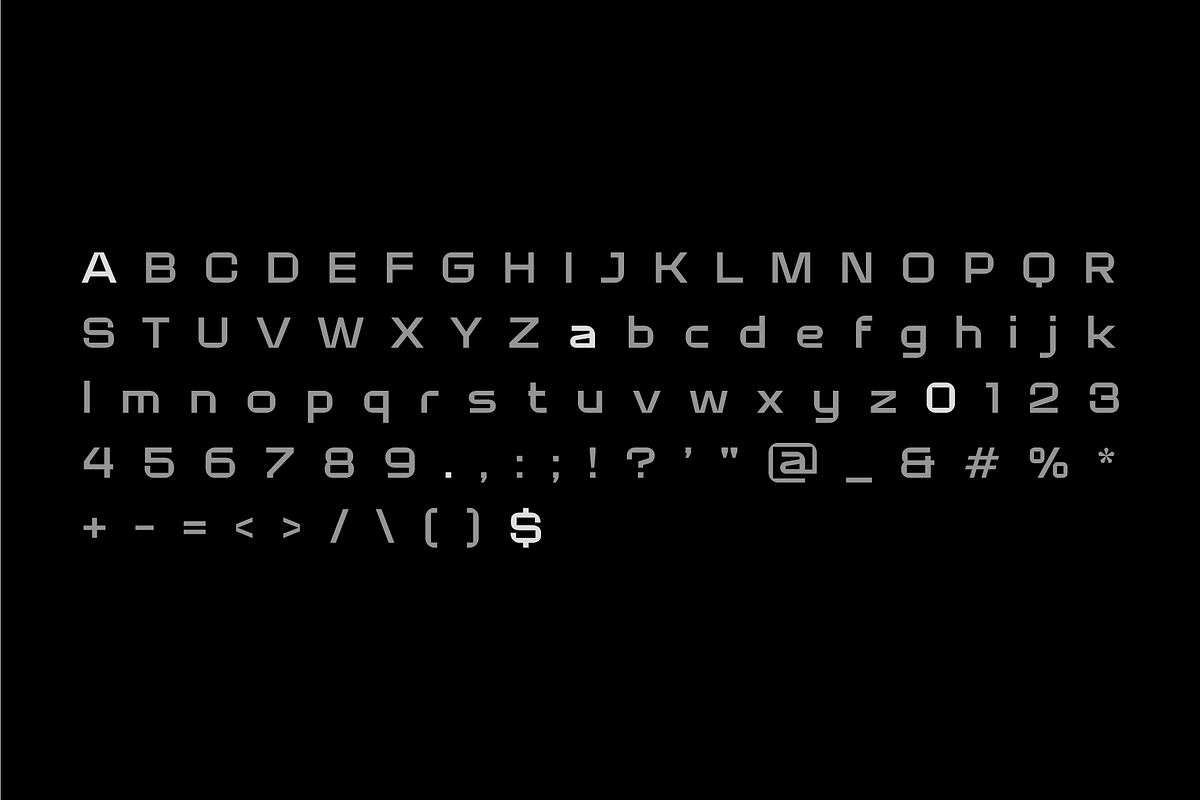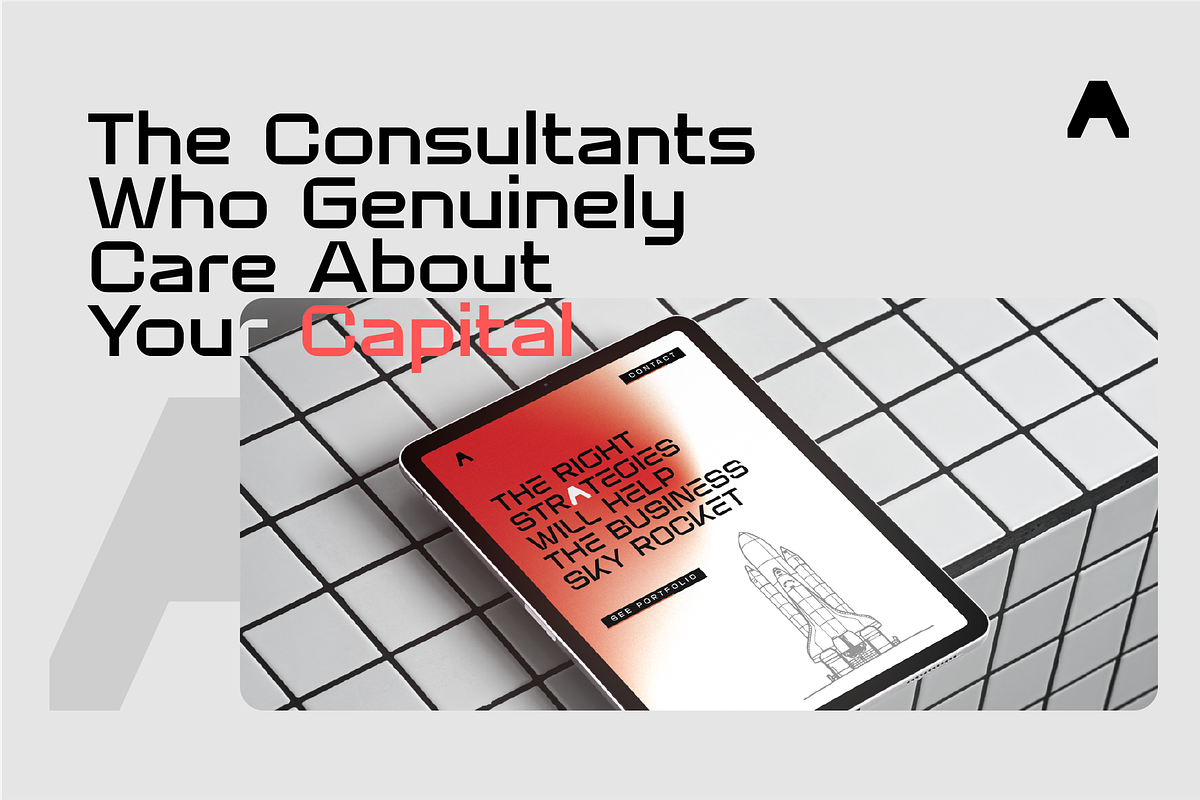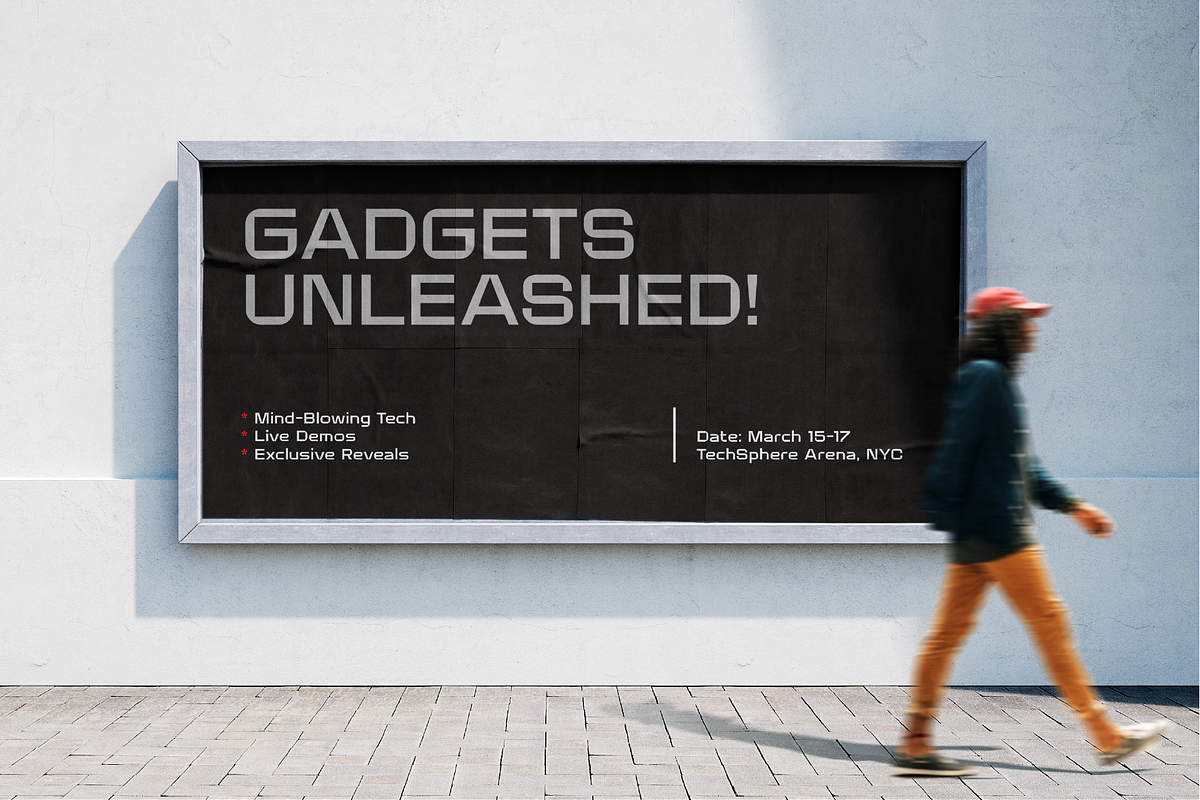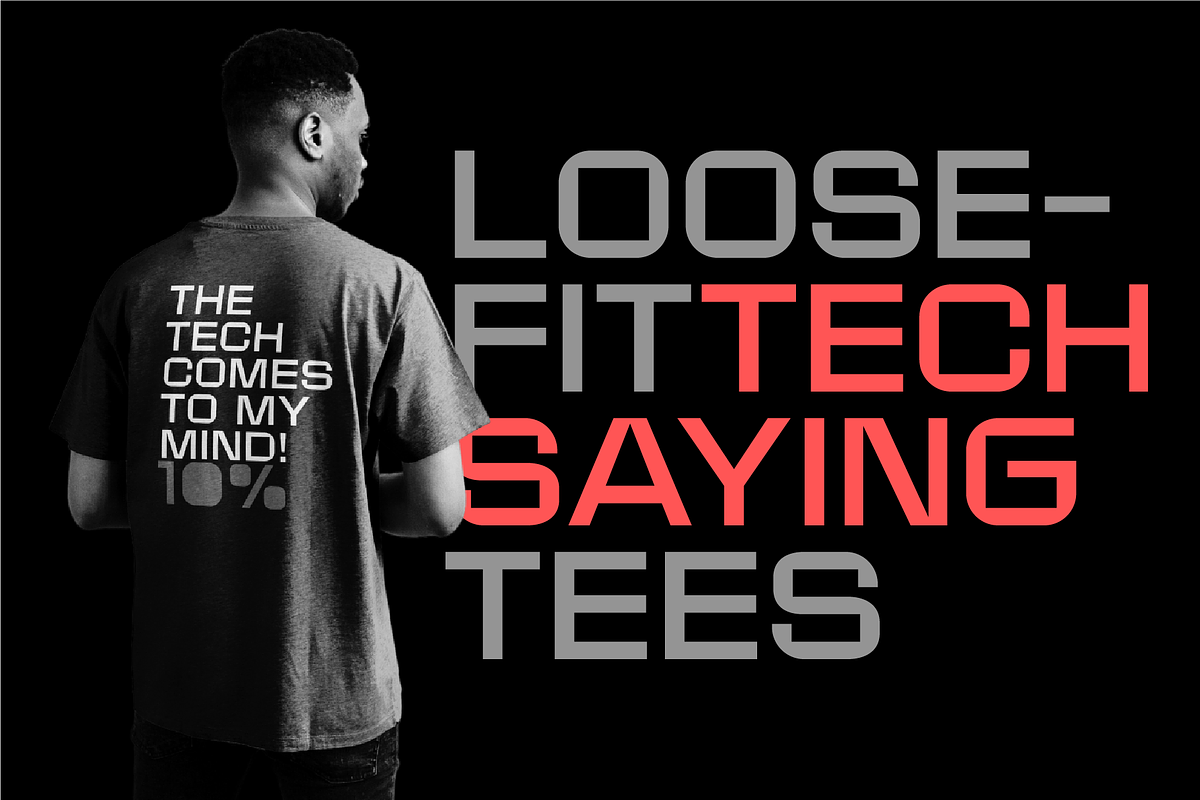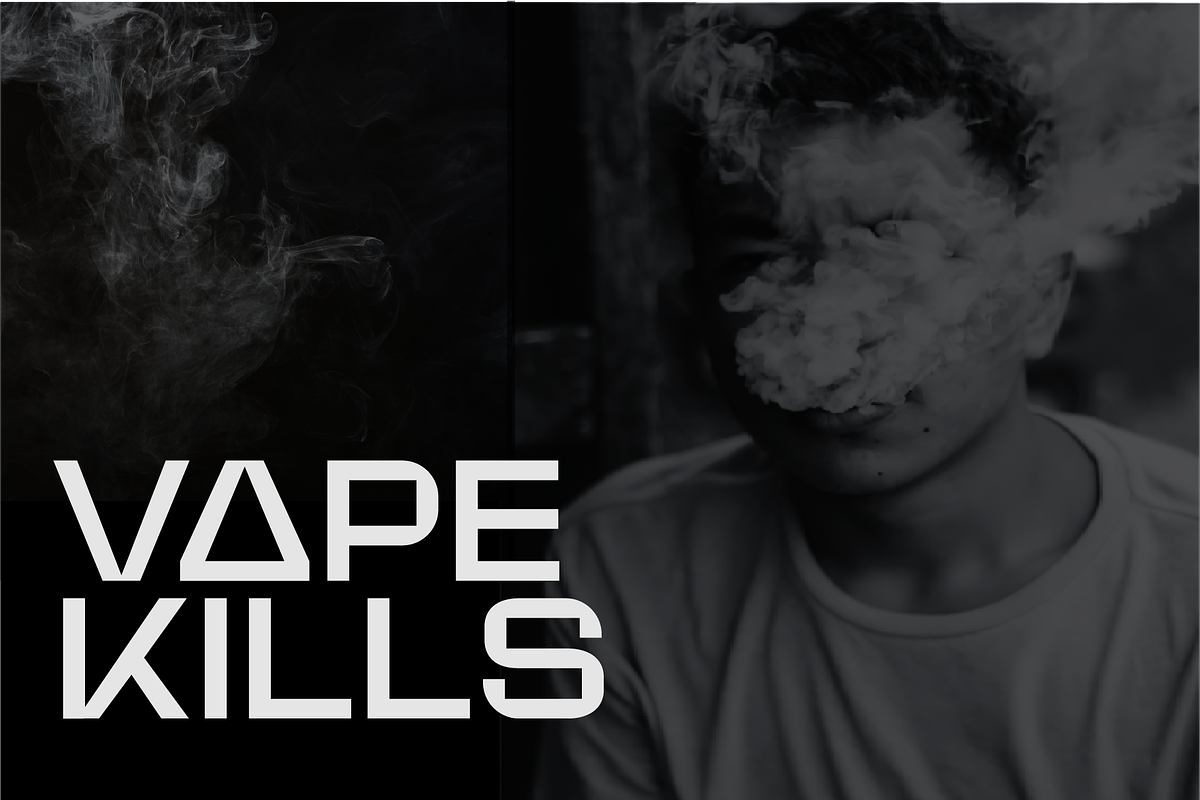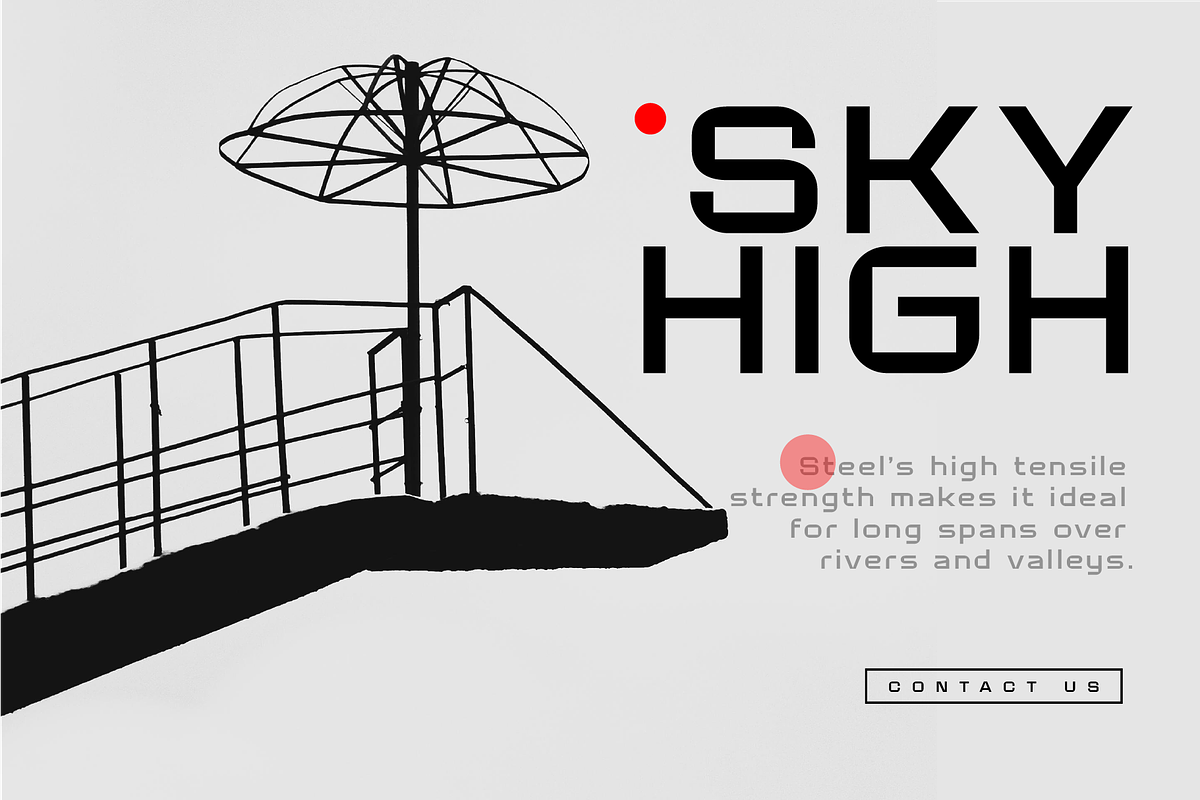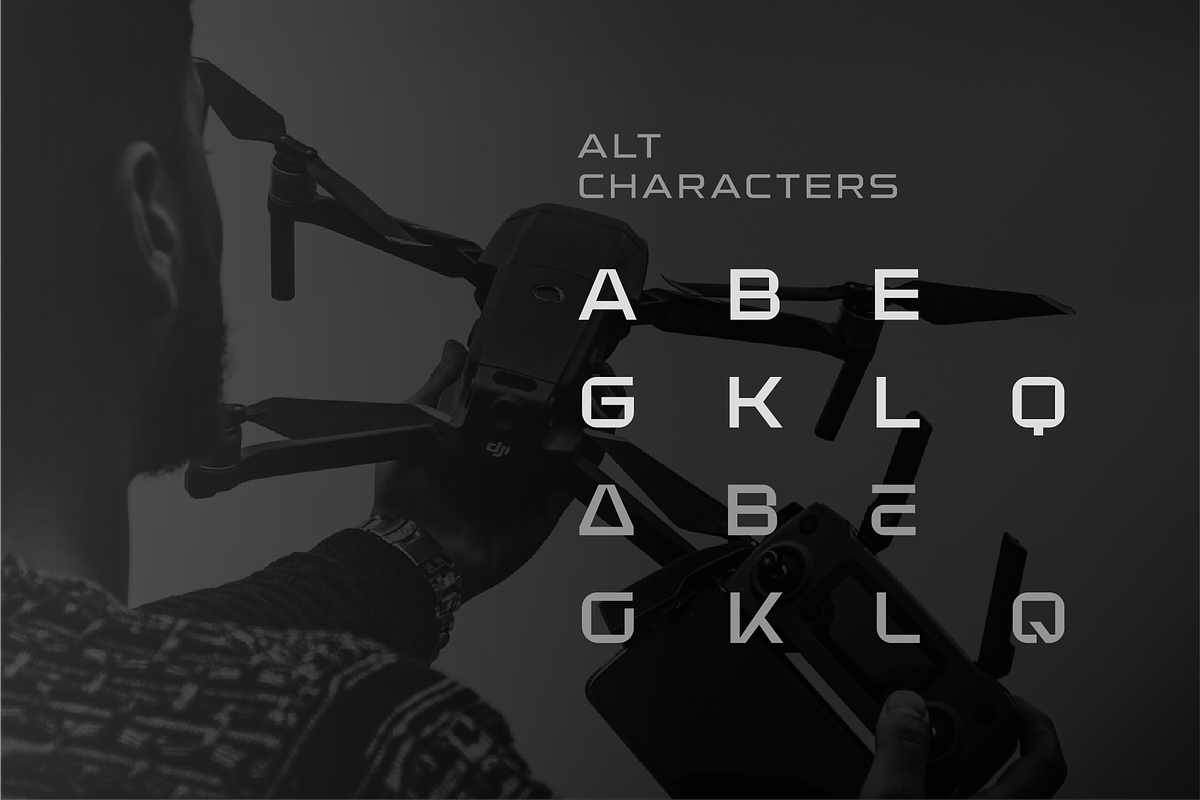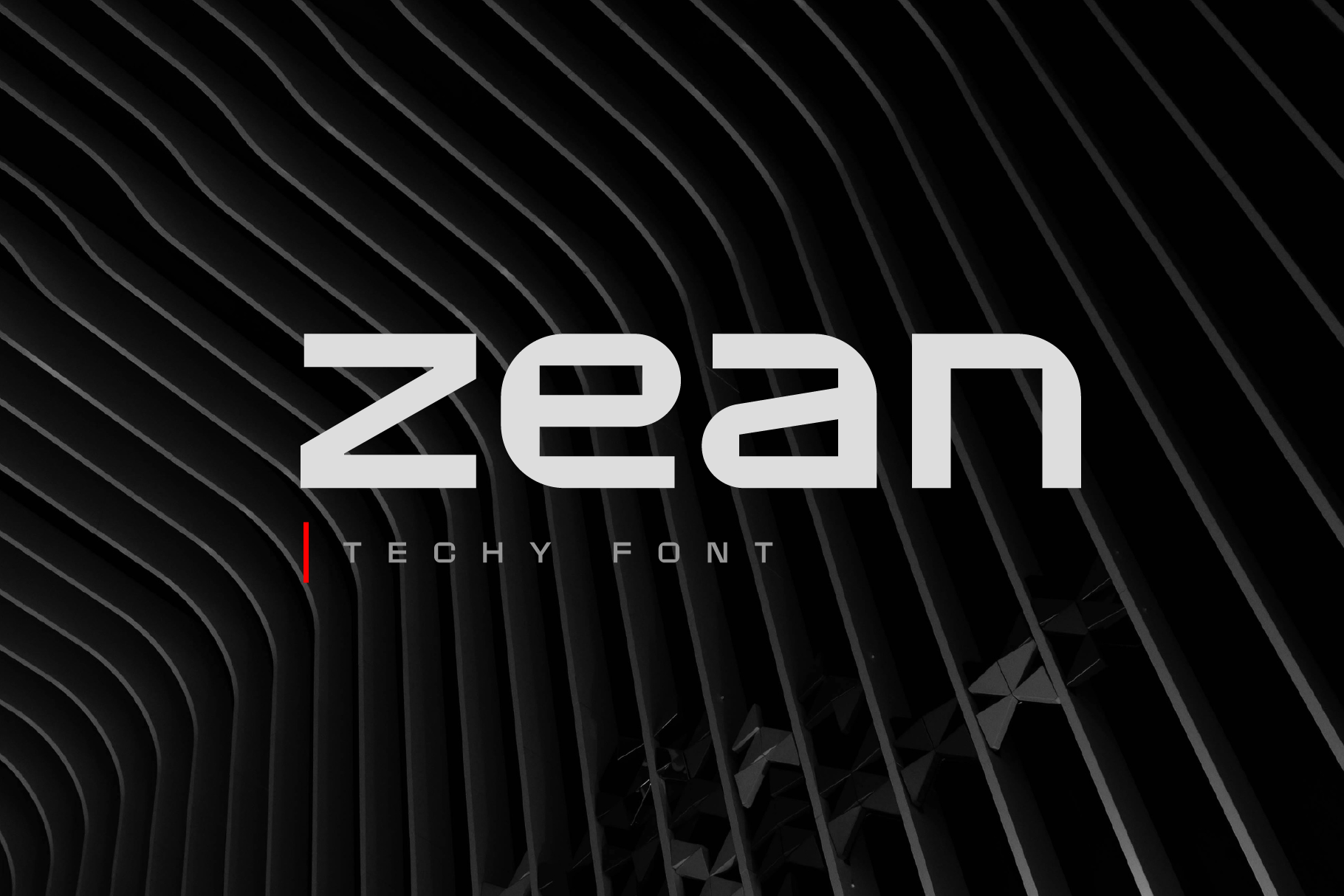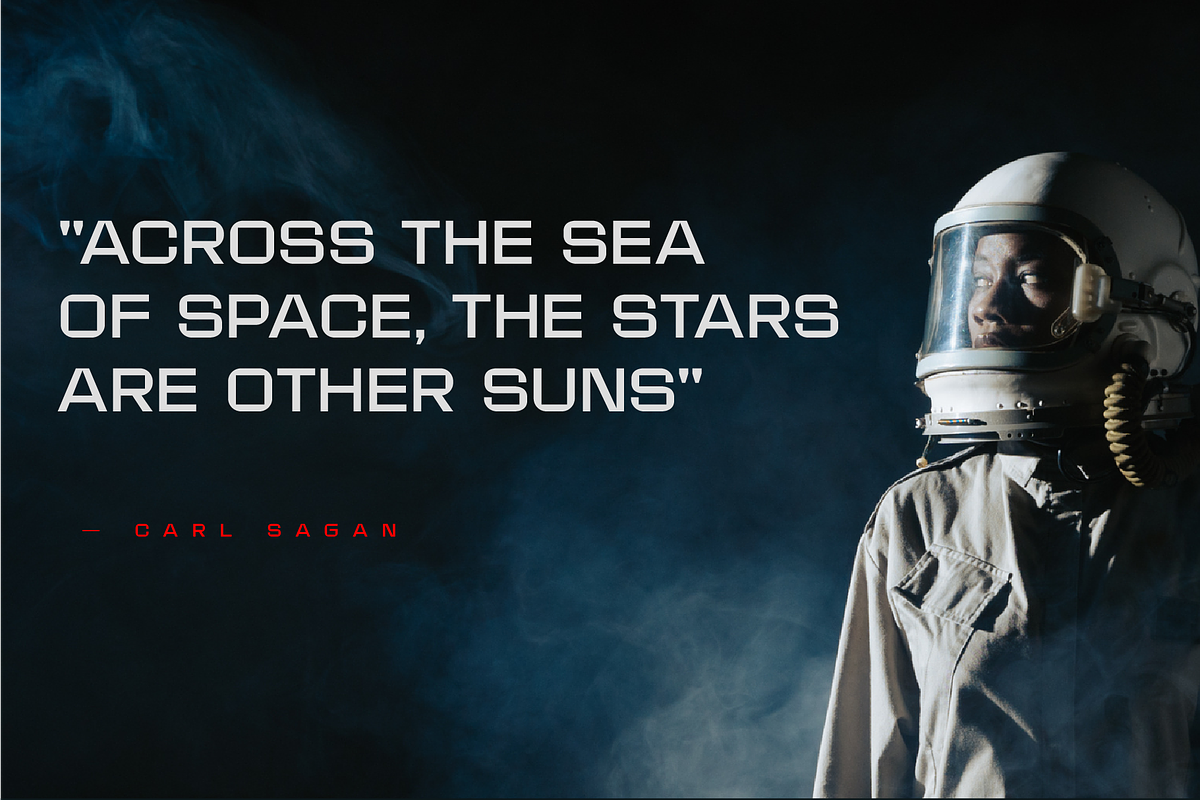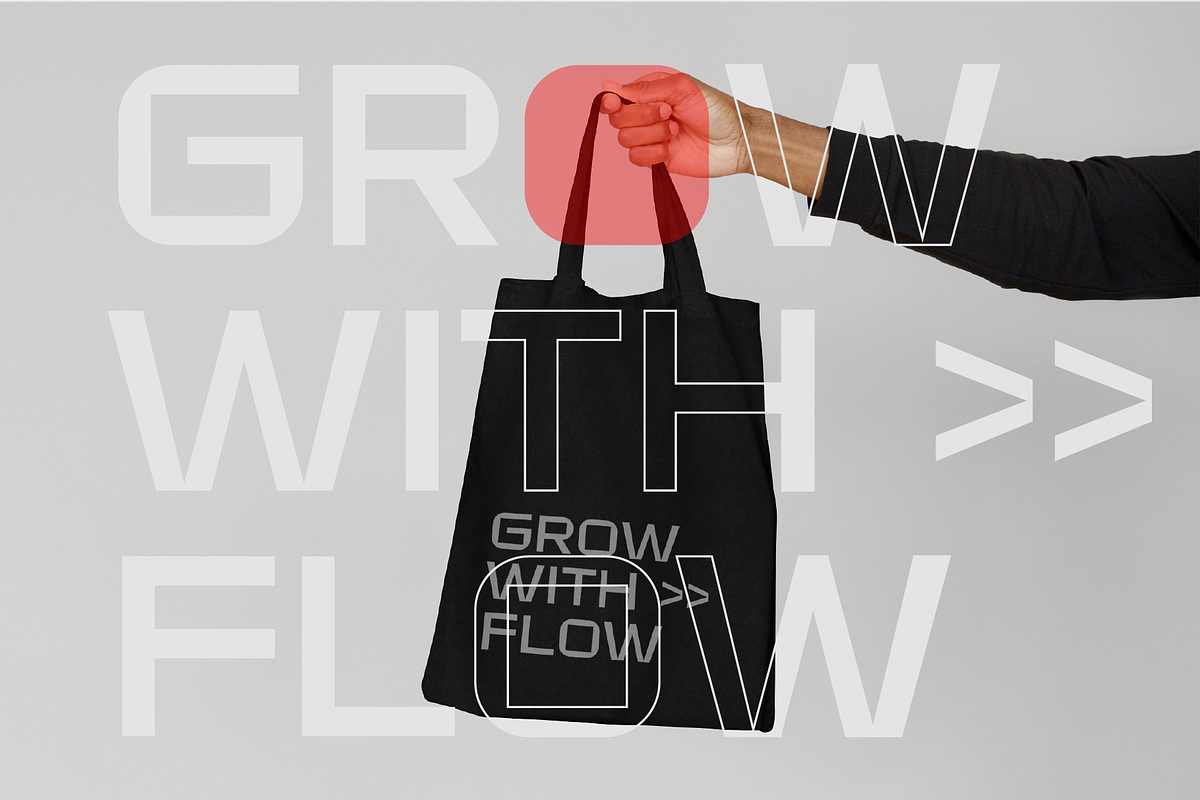
Zean Sharp Geometric Tech Font
Zean is an edgy geometric font designed with precision and modernity in mind. This clean futuristic font features sharp, angular letterforms and a sleek, minimalist aesthetic, This bold font embodies the essence of futuristic design. Its clean, symmetrical structure is ideal for technology branding, user interfaces, sci-fi themes, and digital innovation projects. Zean is also a perfect choice for logos and product packaging design.